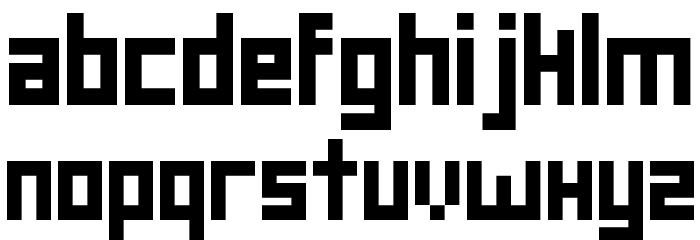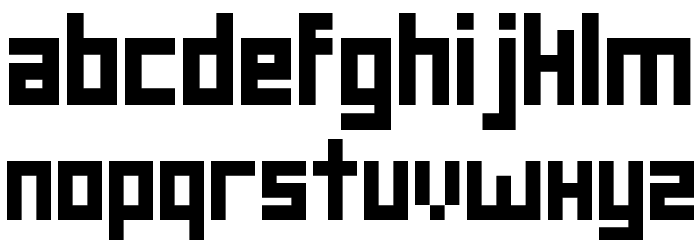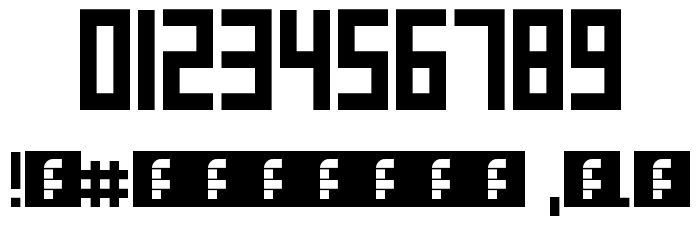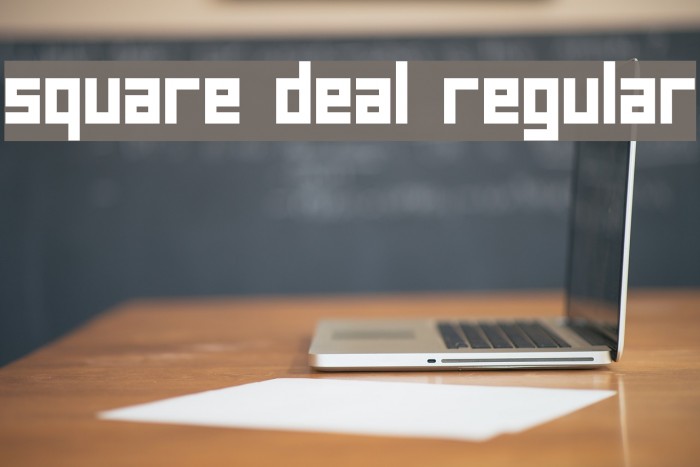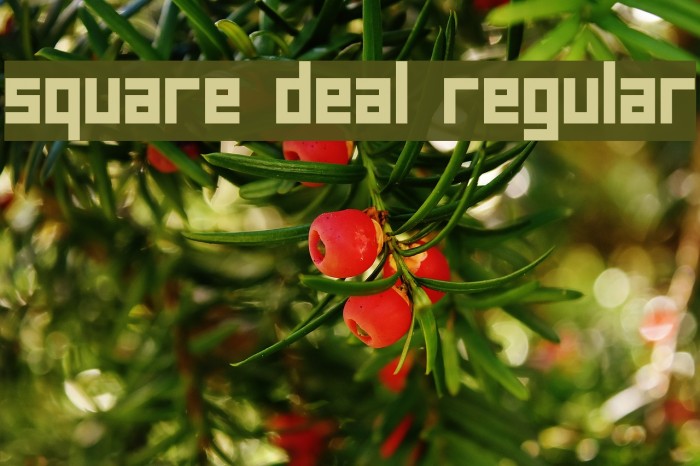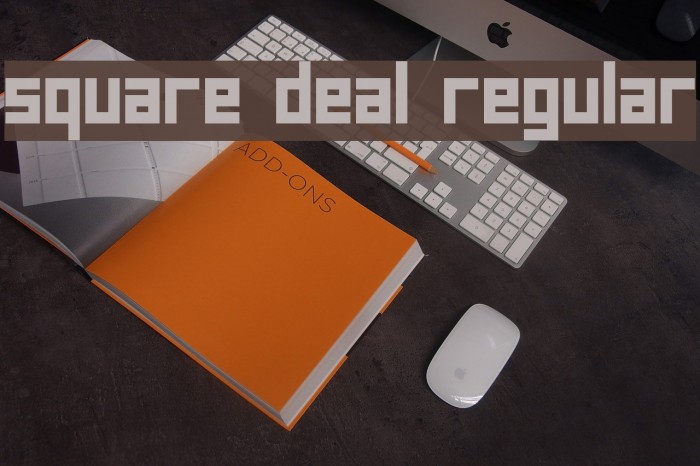
square deal Regular Font
This font features a bold, geometric design with a strong emphasis on square shapes and straight lines. The characters are uniformly structured, giving a modern and digital feel. The uppercase and lowercase letters maintain a consistent height, contributing to a cohesive appearance. The numerals and special characters follow the same geometric style, ensuring uniformity across all glyphs. The design is reminiscent of early digital or pixelated typefaces, making it ideal for projects that require a retro or tech-inspired aesthetic.
A bold, geometric font with a modern, digital feel.
- Proposed Projects: Ideal for tech-themed designs, retro video game graphics, digital art projects, and modern branding.